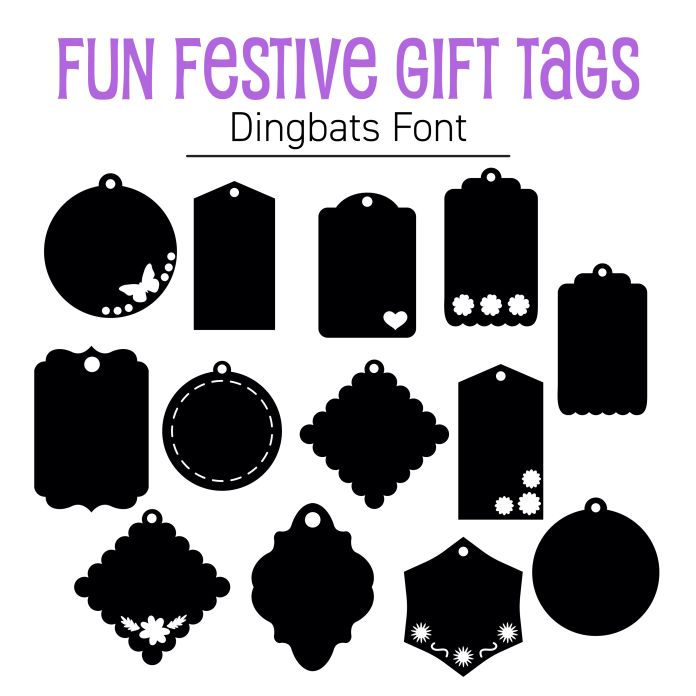
Add a playful and practical touch to any occasion with this Festive Gift Tag Shapes Dingbat Font! This delightful dingbat set features a variety of gift tag silhouettes—hearts, scalloped edges, bows, florals, and more—all accessible right from your font menu. Use these tag icons in Silhouette Studio to quickly create cuttable or printable gift tags for birthdays, holidays, or any celebration. Perfect for vinyl, cardstock, sticker paper, and even kraft paper. Try them on party favors, scrapbooking layouts, treat bags, or gift wrap embellishments. With just a keystroke, you get a whole collection of fun tag shapes ready for your next project!